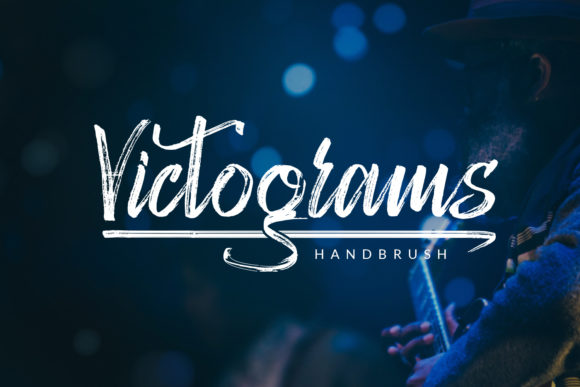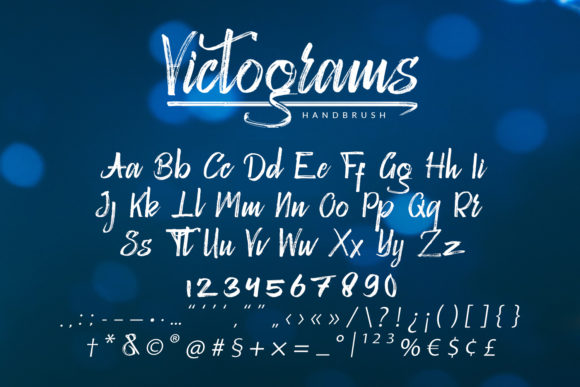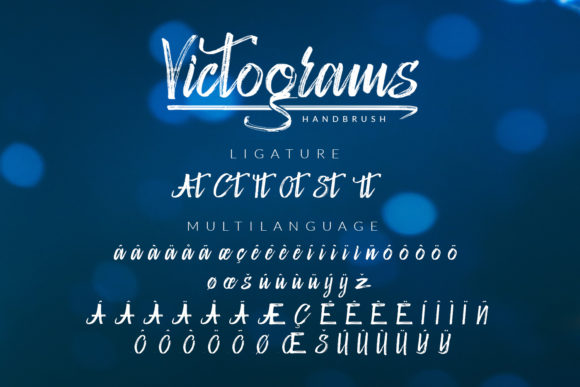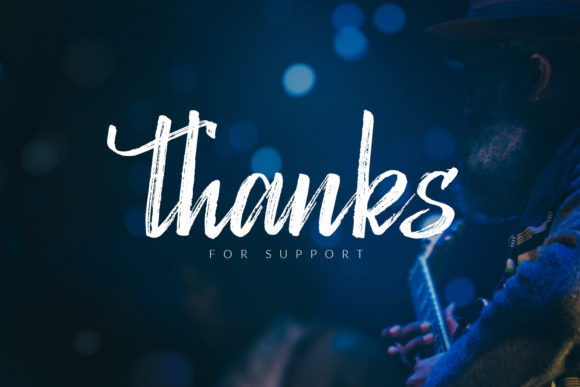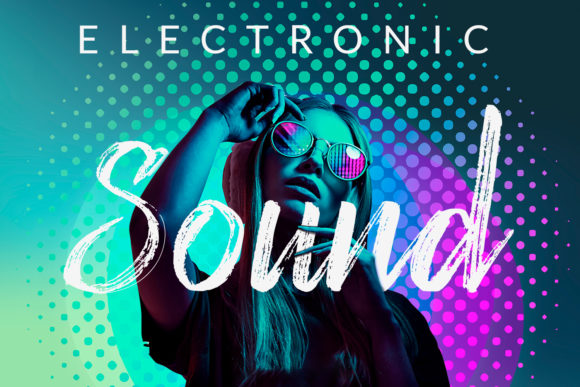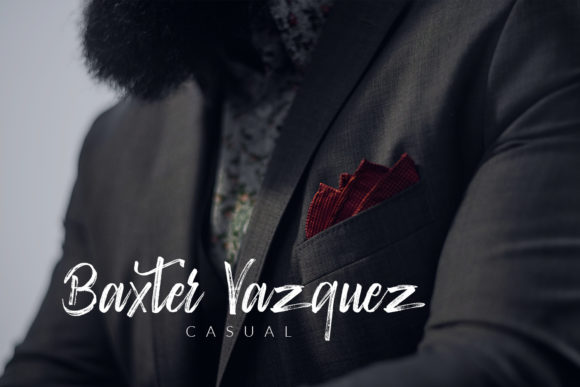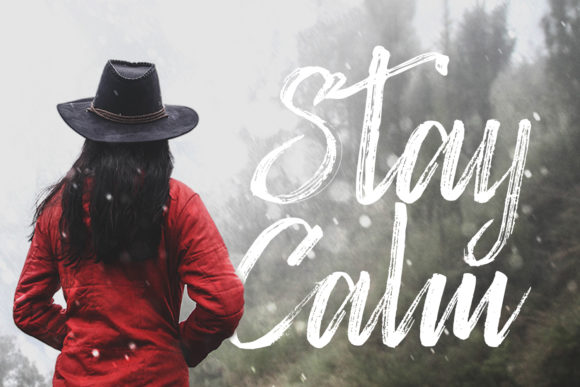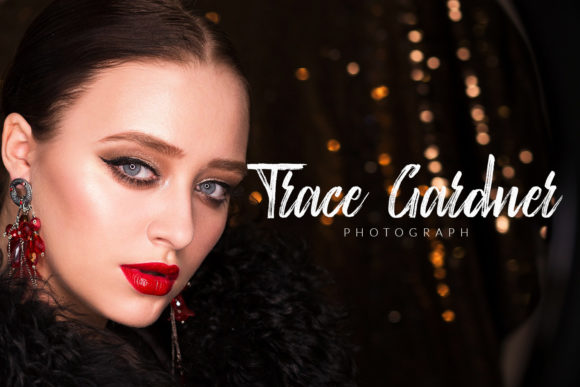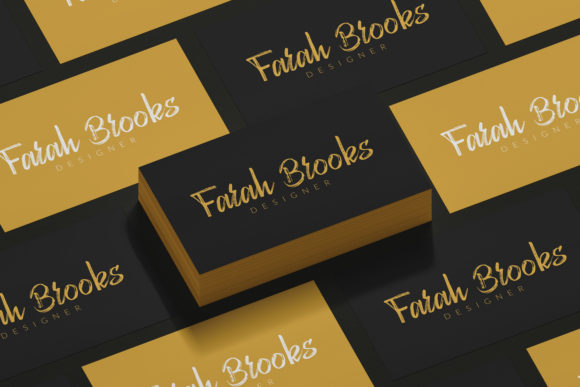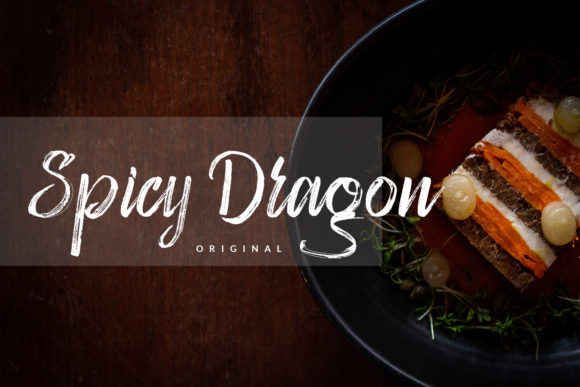
Victograms Font
About Victograms Font
Victograms results out of a stunning pairing of a brush pen and pencil that makes it look incredibly endearing and authentic. Use this gorgeous and unique handwritten font to bring any DIY project to life!